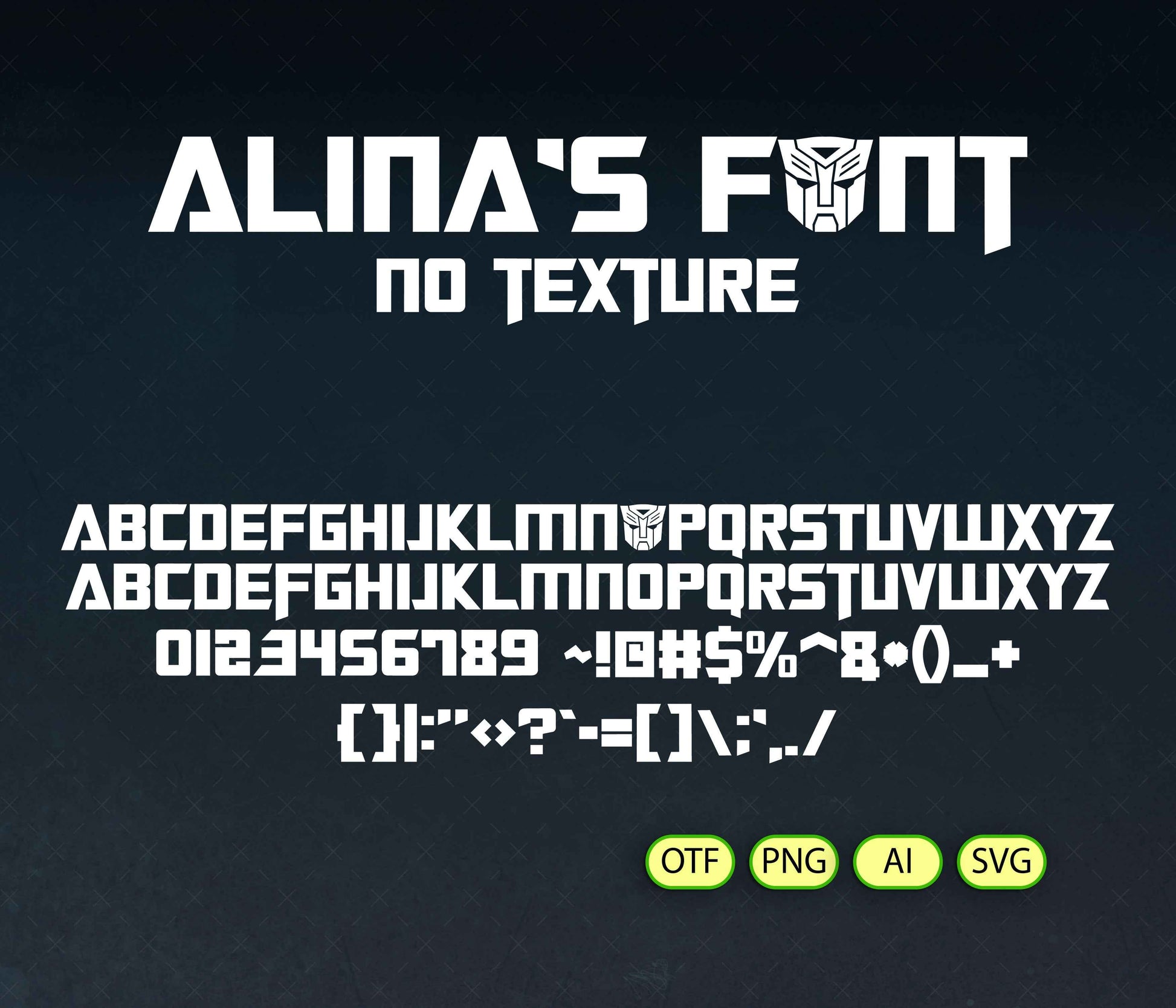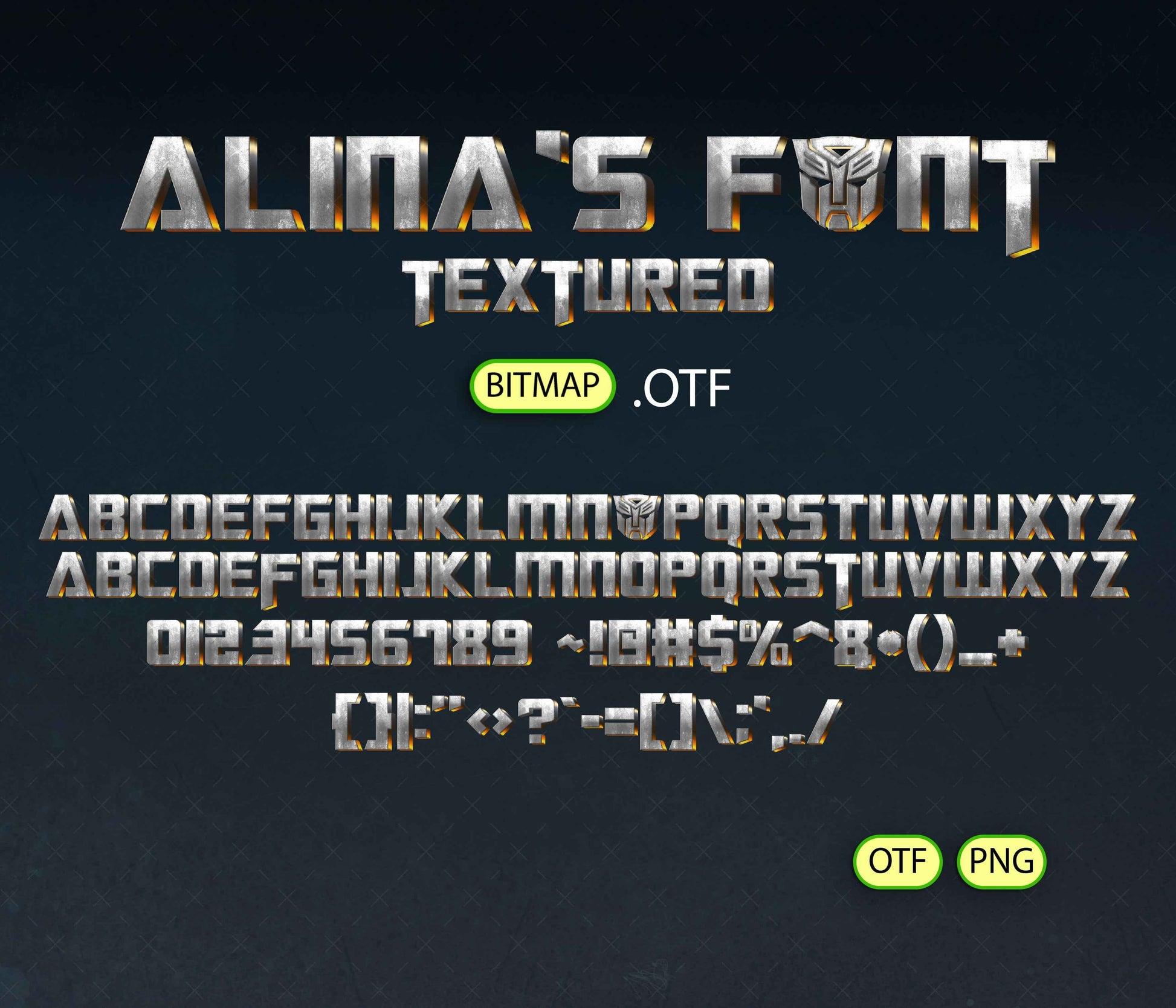
Robo-Shift Font Textured
Robo-Shift Textured Font: The High-Tech World of Shapeshifting Machine
Embark on an epic journey into the futuristic and mechanized universe of shapeshifting robots with our specially designed font. This font embodies the essence of transforming robots, capturing the power, technology, and dynamic conflict between these alien machine groups. Each character in the font is crafted to reflect the bold, angular, and metallic design synonymous with transforming robots, making it perfect for projects that aim to evoke the excitement and high-tech feel of this legendary series.
What Font is Robo-Shift Font?
Imagine a typeface that encapsulates the mechanical and futuristic style of a universe where vehicles become robots. Our font is meticulously designed to mirror sharp, robotic aesthetics, characterized by strong, angular lines and an industrial look. It includes an extensive character set, featuring alphabets, numbers, and special symbols, providing a comprehensive solution for branding, marketing, and design projects that require a touch of sci-fi and robotic themes.
What Can You Do With Robo-Shift Font?
The Robo-Shift font is versatile and ideal for various creative and imaginative applications:
- Textured and FREE Non-Textured Variants: Each font is available in both a metallic, textured style and a clean, non-textured version for different design scenarios.
- Comprehensive Character Set: Offers a wide range of characters for complete design versatility.
The Robo-Shift-inspired font is more than just a typeface; it's an homage to the futuristic and robotic world of shapeshifting machines.